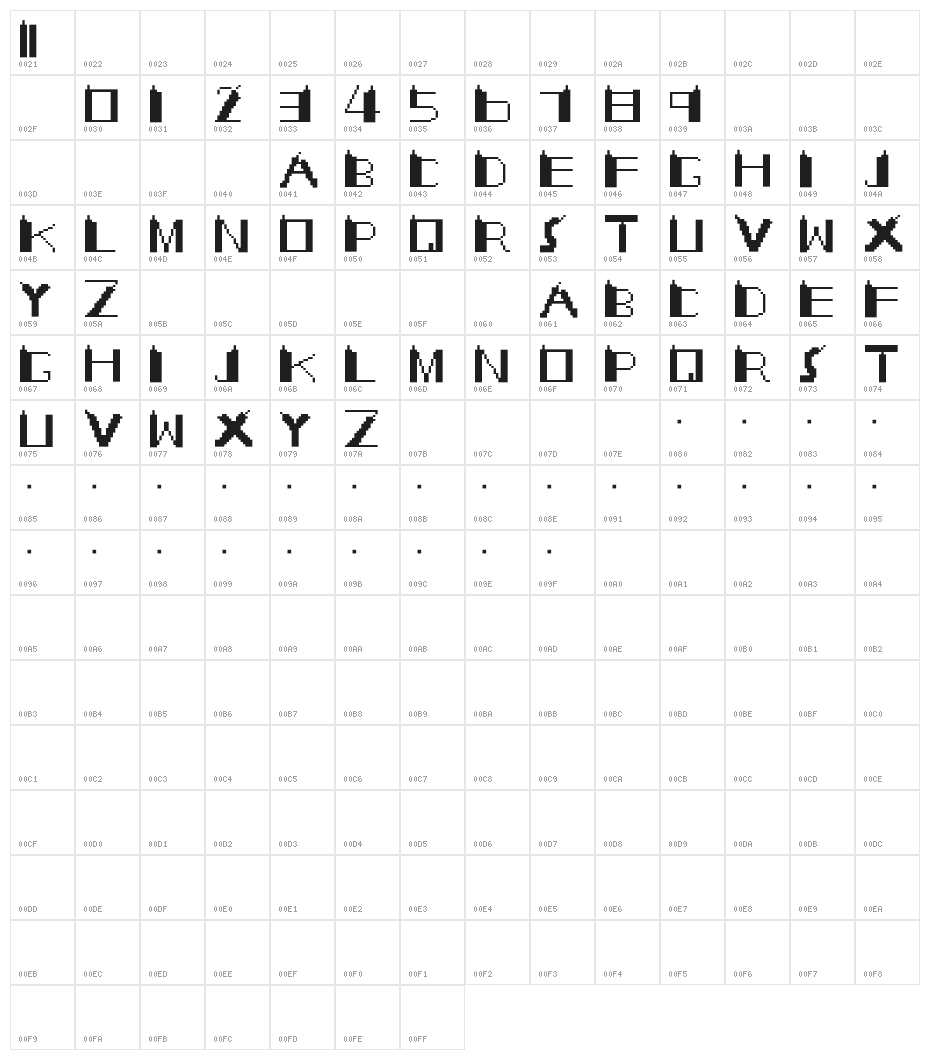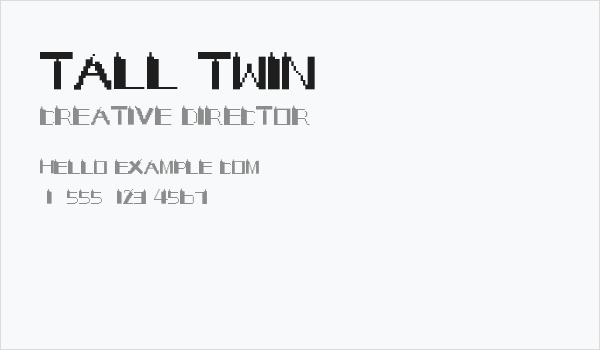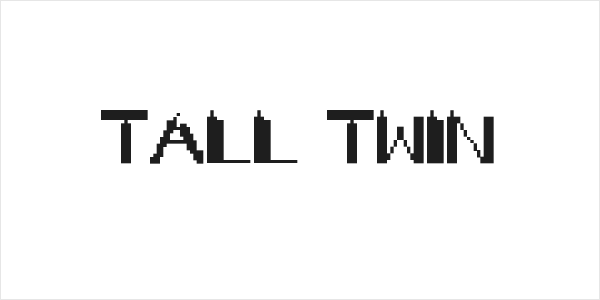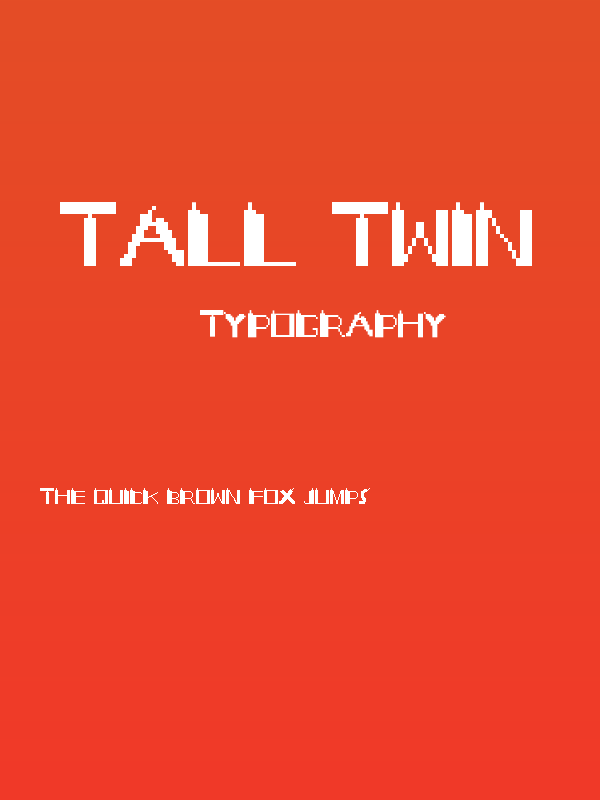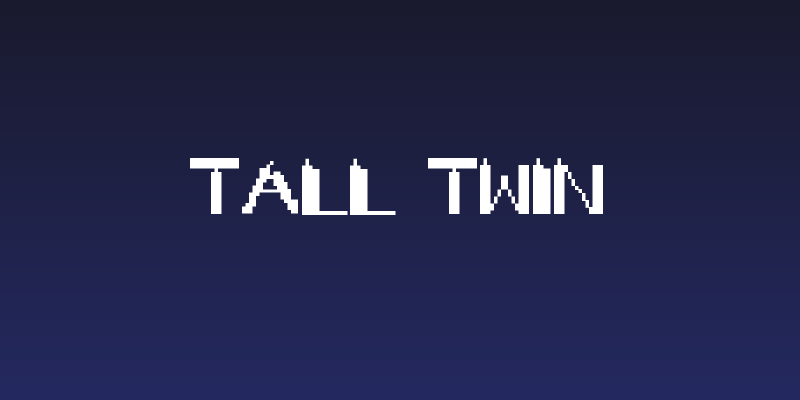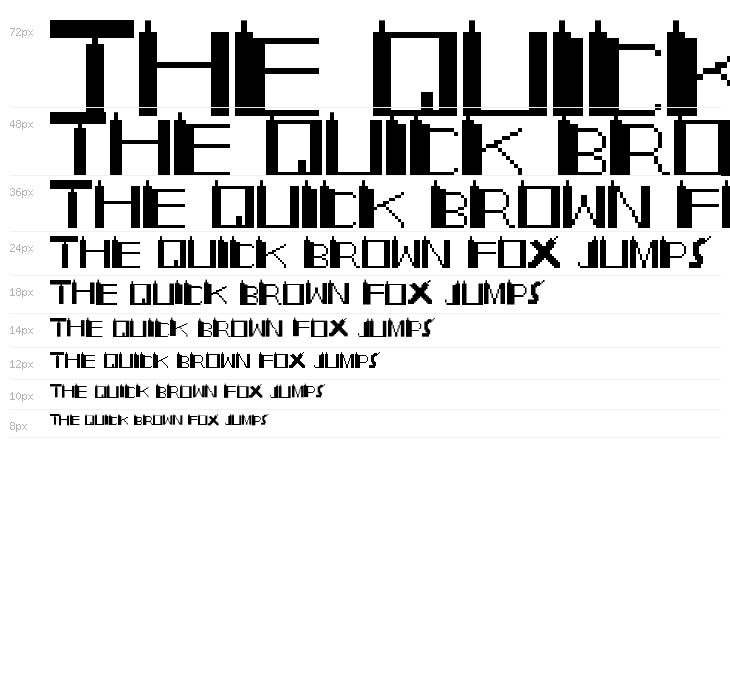
TALL TWIN Font
TALL TWIN Description
This font features a bold and geometric design with a pixelated, blocky appearance. Each character is constructed with sharp angles and straight lines, giving it a distinctly digital and modern aesthetic. The uppercase and lowercase letters maintain a consistent height, contributing to a uniform look. The numbers and special characters follow the same design principles, ensuring cohesion across all elements. This font's unique style makes it stand out, ideal for projects that require a futuristic or tech-inspired theme.
| Use Case | Logos, Headlines, Digital Art |
| Proposed Projects | Ideal for digital art, video game design, tech-themed posters, and modern branding. |